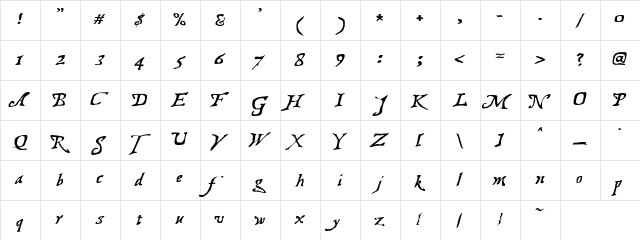
Treasure Map Deadhand Regular Font Preview
Treasure Map Deadhand Regular
Treasure Map Deadhand Regular Font Details
Design Context for Treasure Map Deadhand Typeface
Treasure Map Deadhand brings a calligraphic fluidity to the page — its connecting strokes and expressive curves give it an unmistakably human quality.